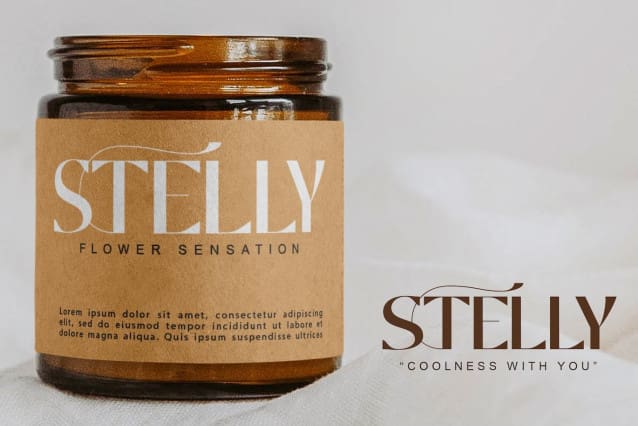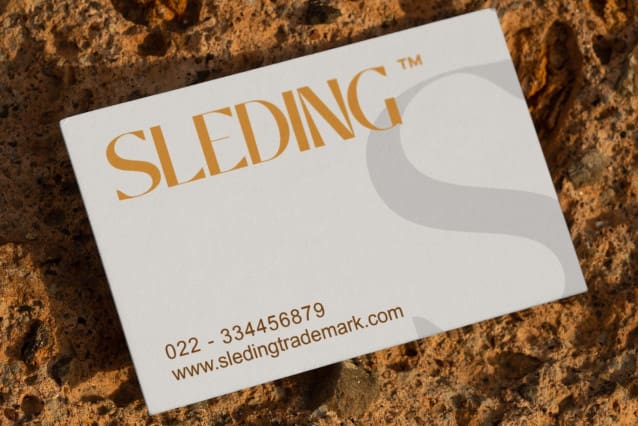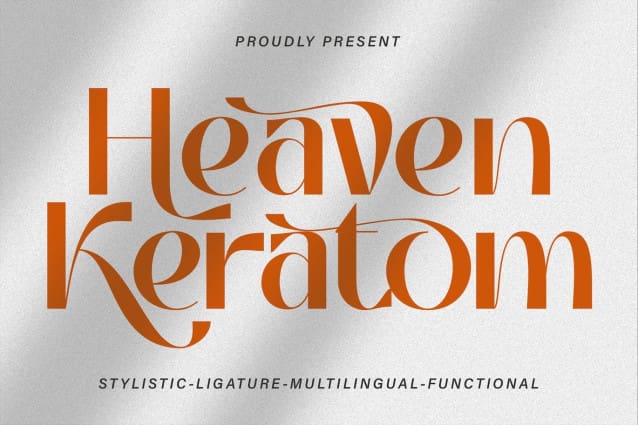
Heaven Keratom Font
Heaven Keratom Font, will perfect for many project: book, magazines, logo, branding, photography, quotes, blog header, poster, advertisements, etc.